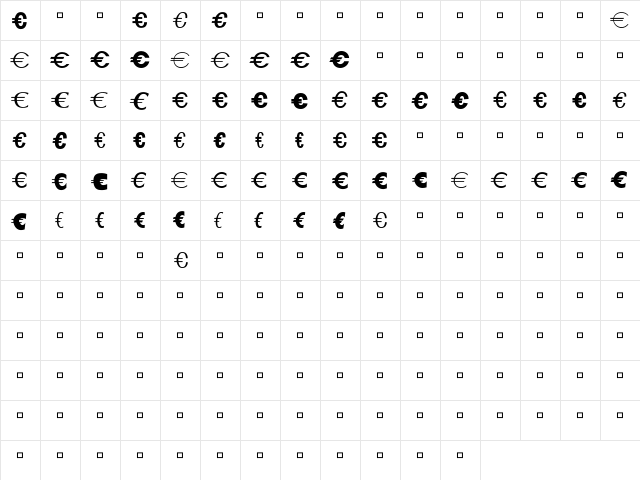
EuroA Regular
Design Context for EuroA Typeface
EuroA offers clean, dependable letterforms without strong stylistic allegiance, making it a practical choice for designers who need flexibility.